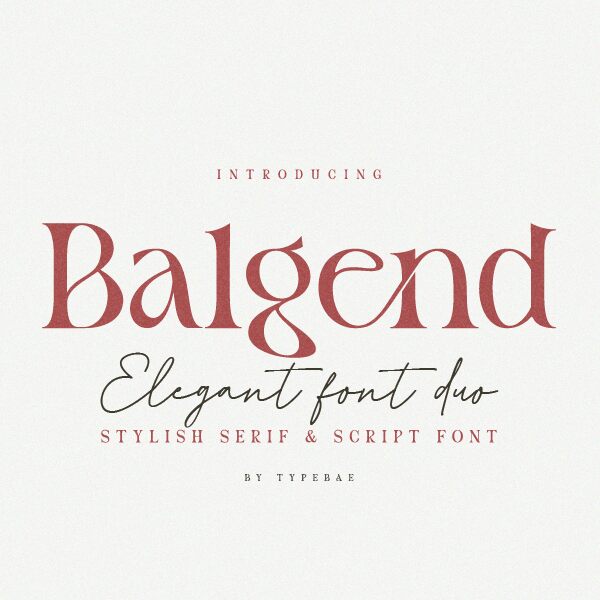
Balgend Script
Balgend Script font by Typebae Foundry is a light handwritten font with a stylish look and personalized flair. With clear strokes that resemble gentle writing, this font invokes feelings of excitement through its expressive letters. For any artist with talent and future works to showcase, this isn’t just a new free handwritten font to add to your collection but the very dependable tool you need for dashing artworks.
Free fonts create exciting opportunities which is why the uses of Balgend script seem never-ending. It’s for social media branding designs like posts and banners, covers for books, albums, projects as well as leaflets and brochures where an artistic touch is required. Because both family names and individual names will look good with this stylish light font, use it in posters for events like book signings or concerts where you can feature not only the name of the star but the title of their creation as well.